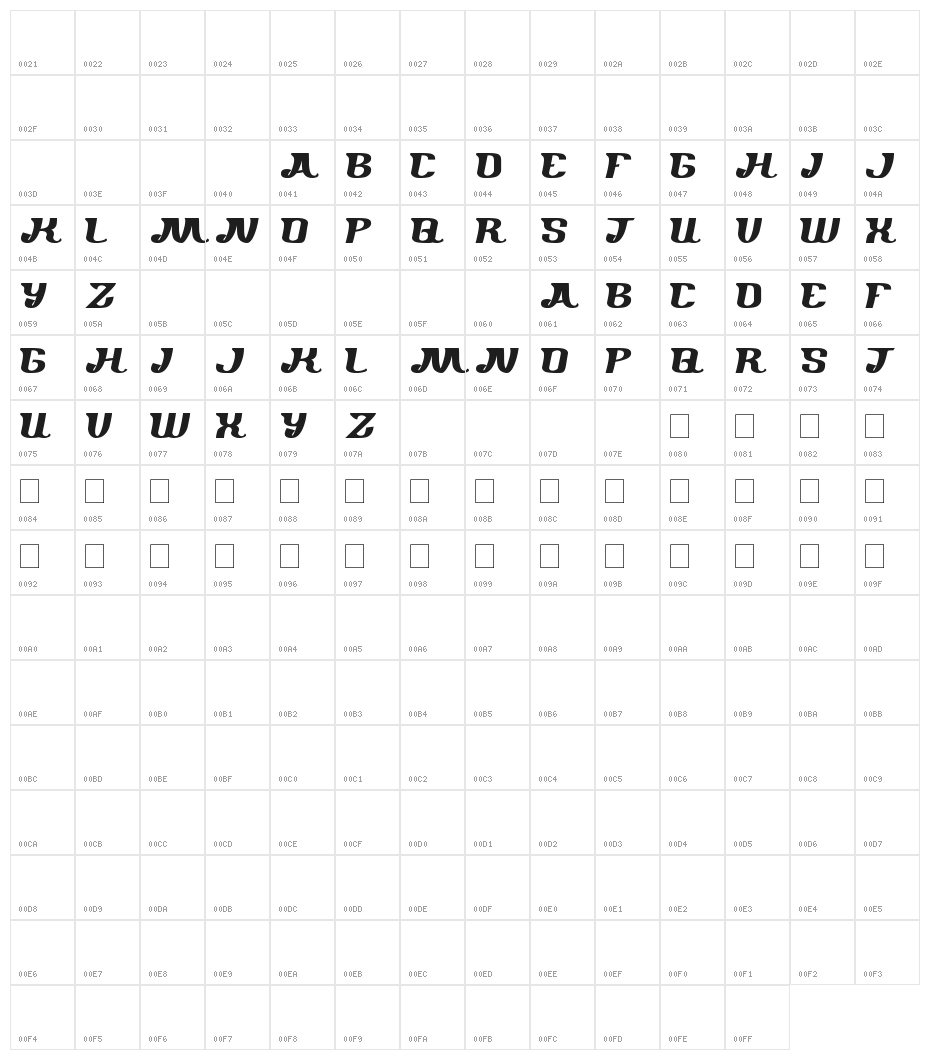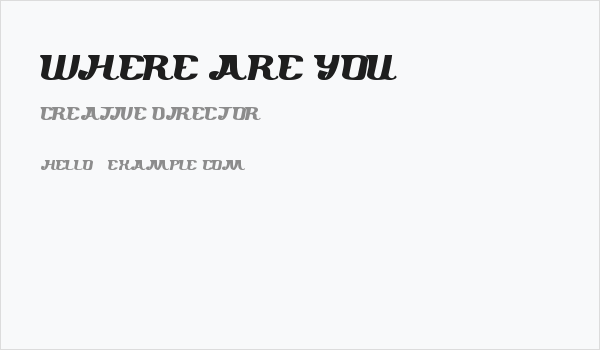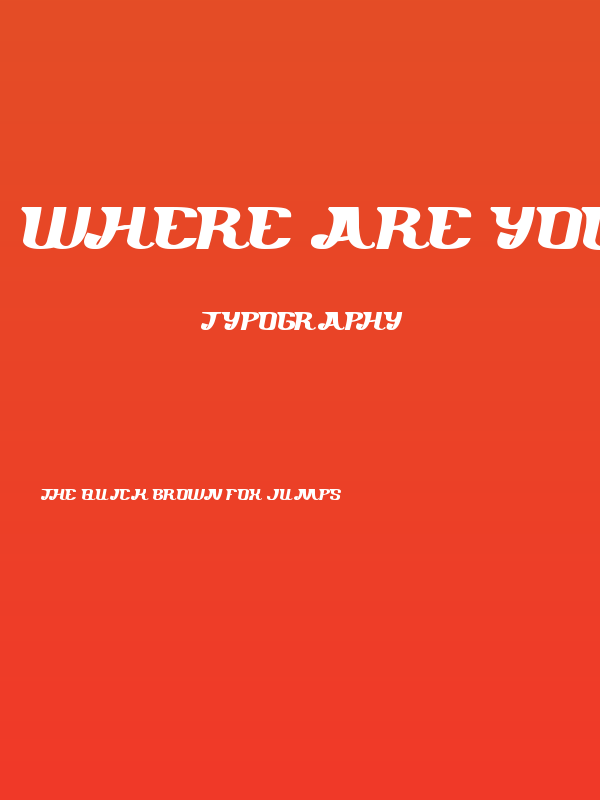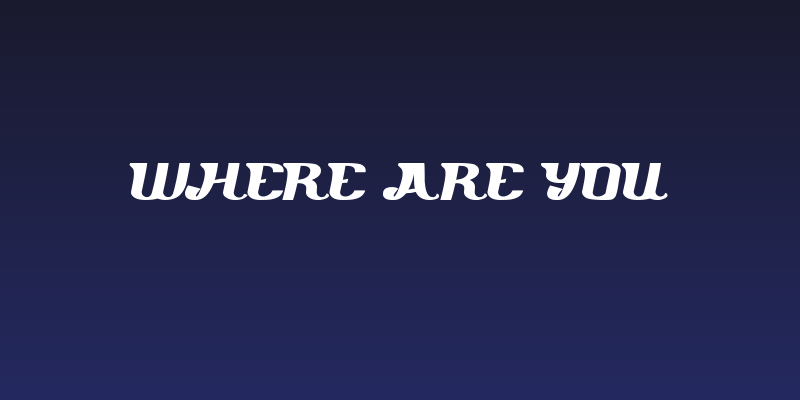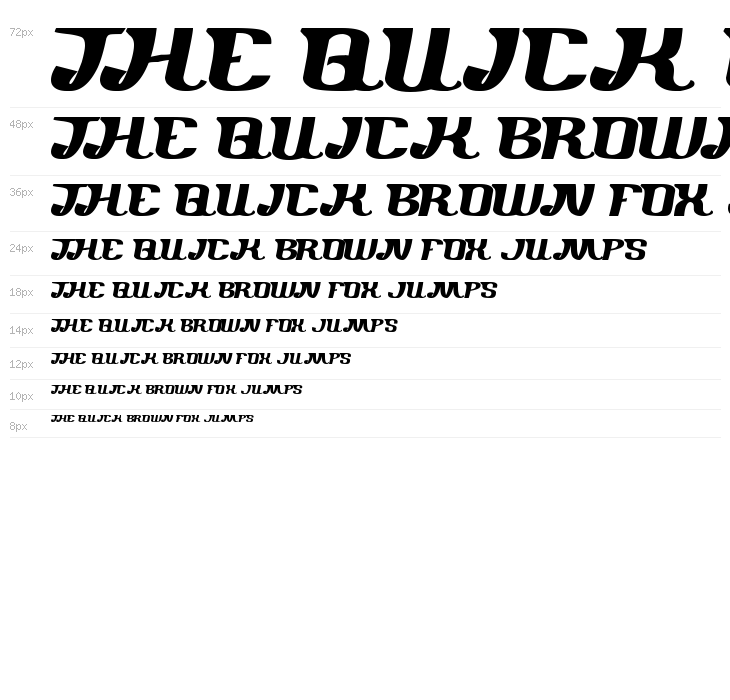
where are you Font
where are you Description
This font features a bold and decorative style with a unique flair that combines elements of both script and serif fonts. The characters have a distinct, flowing appearance with pronounced curves and flourishes, giving them an elegant yet robust look. The uppercase letters exhibit a strong presence with their thick strokes and intricate details, making them suitable for eye-catching designs. The overall design is cohesive, with each letter maintaining a consistent style that enhances readability while adding a touch of sophistication. This font is ideal for projects that require a blend of classic and modern aesthetics.
| Proposed Projects | Ideal for branding, logo design, invitations, and decorative headlines. |